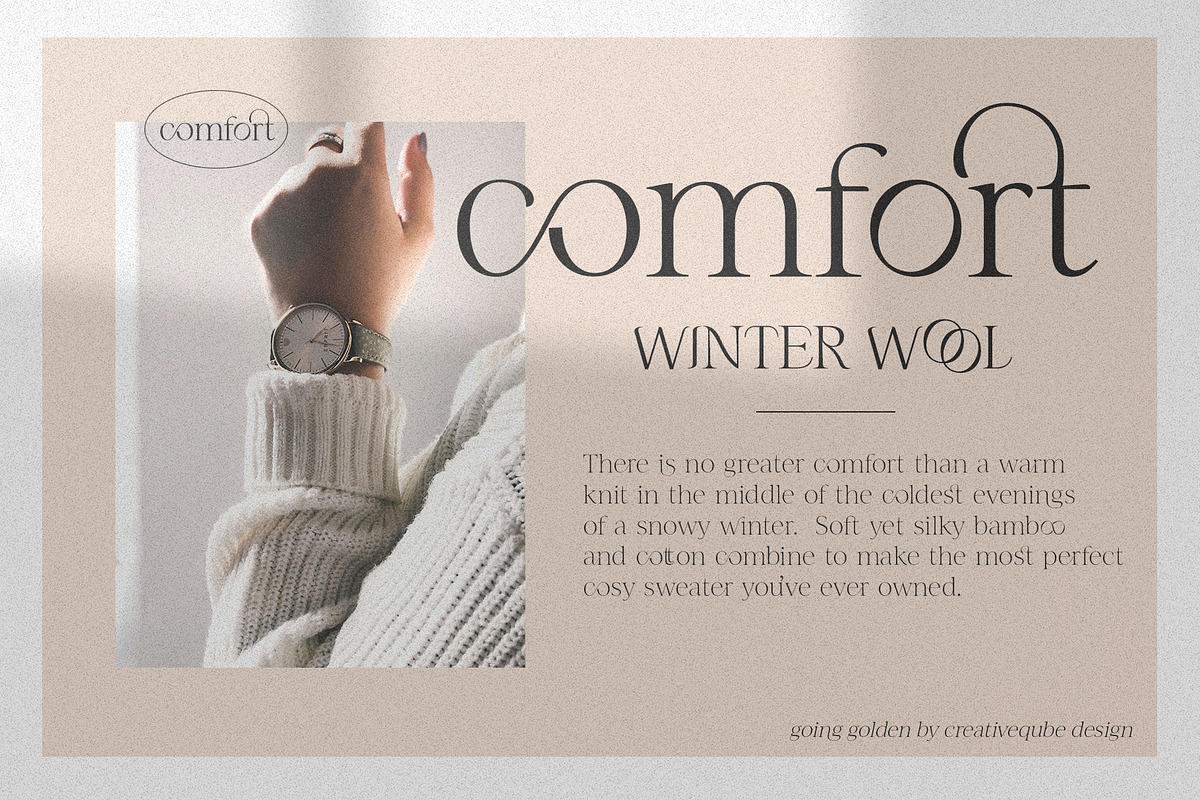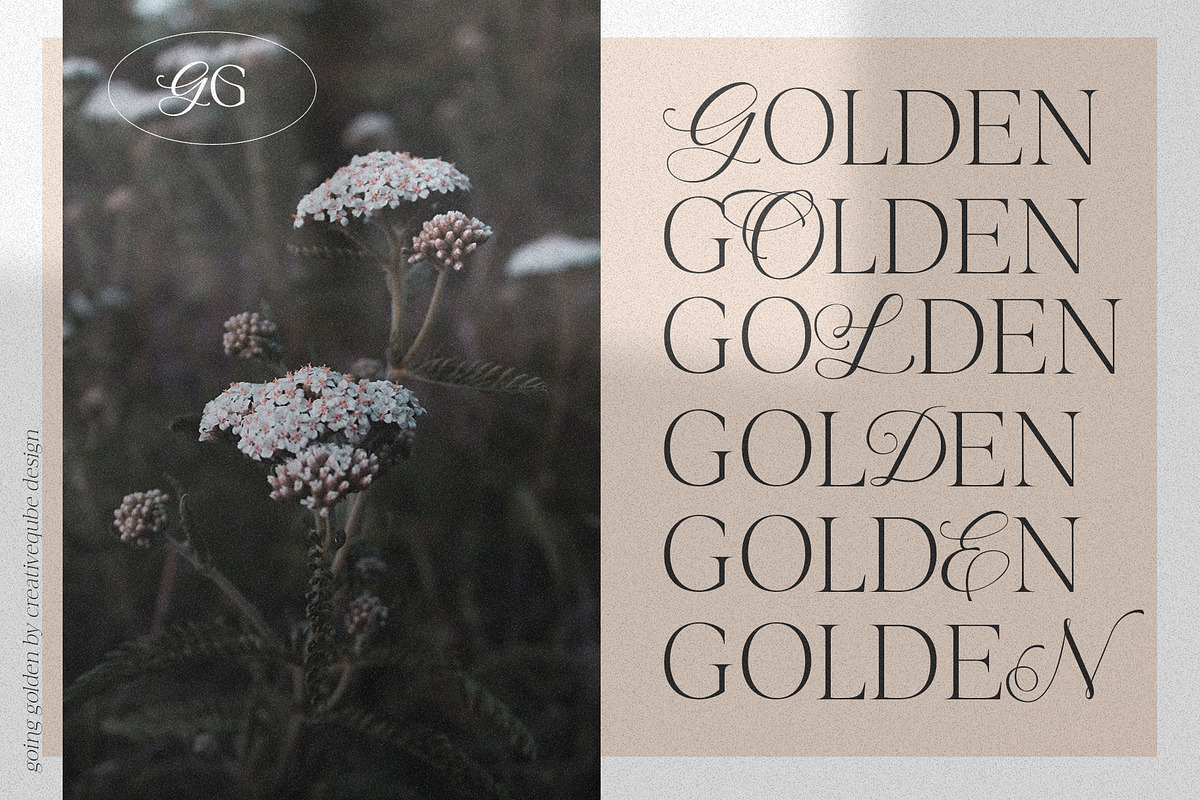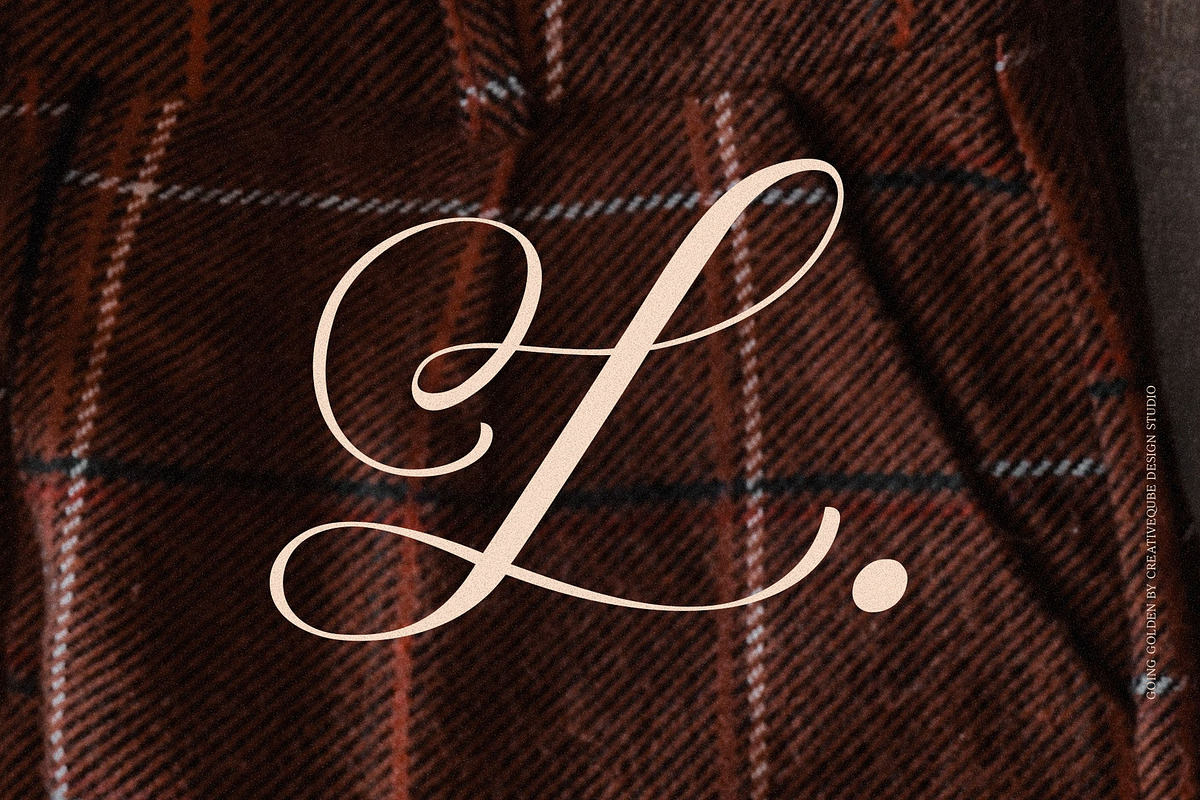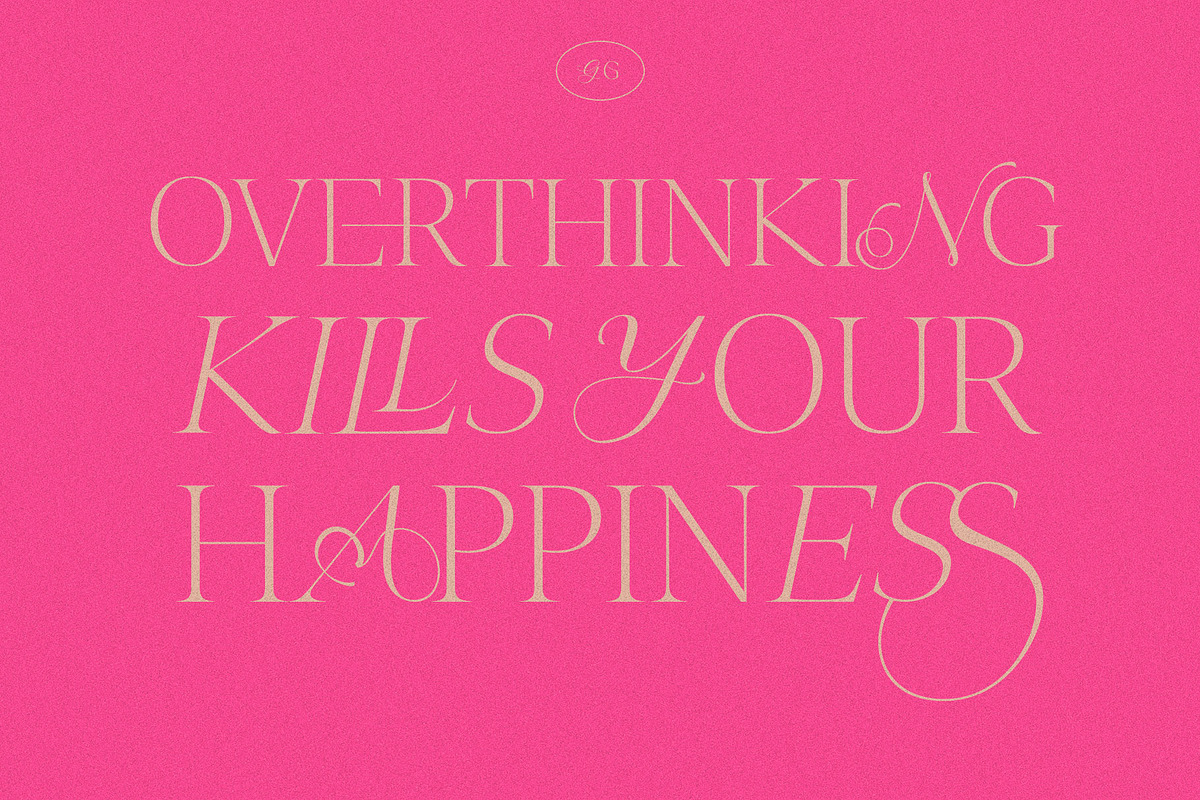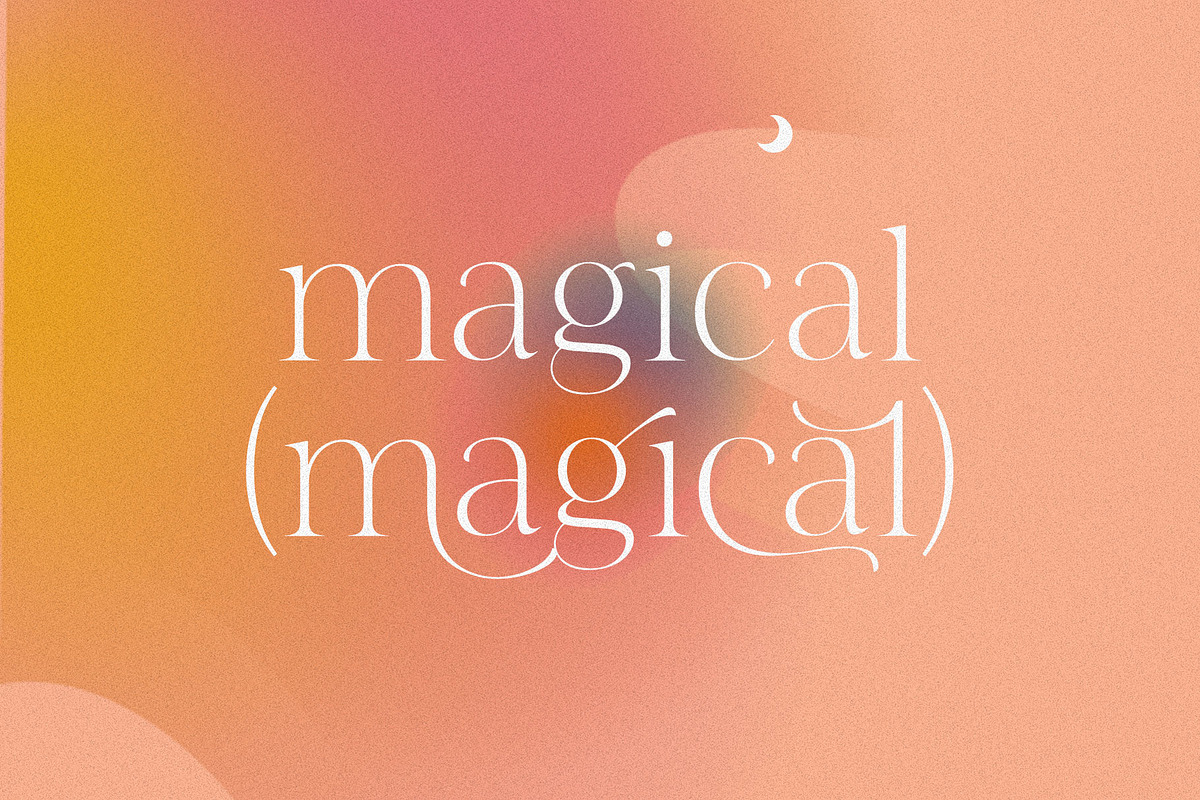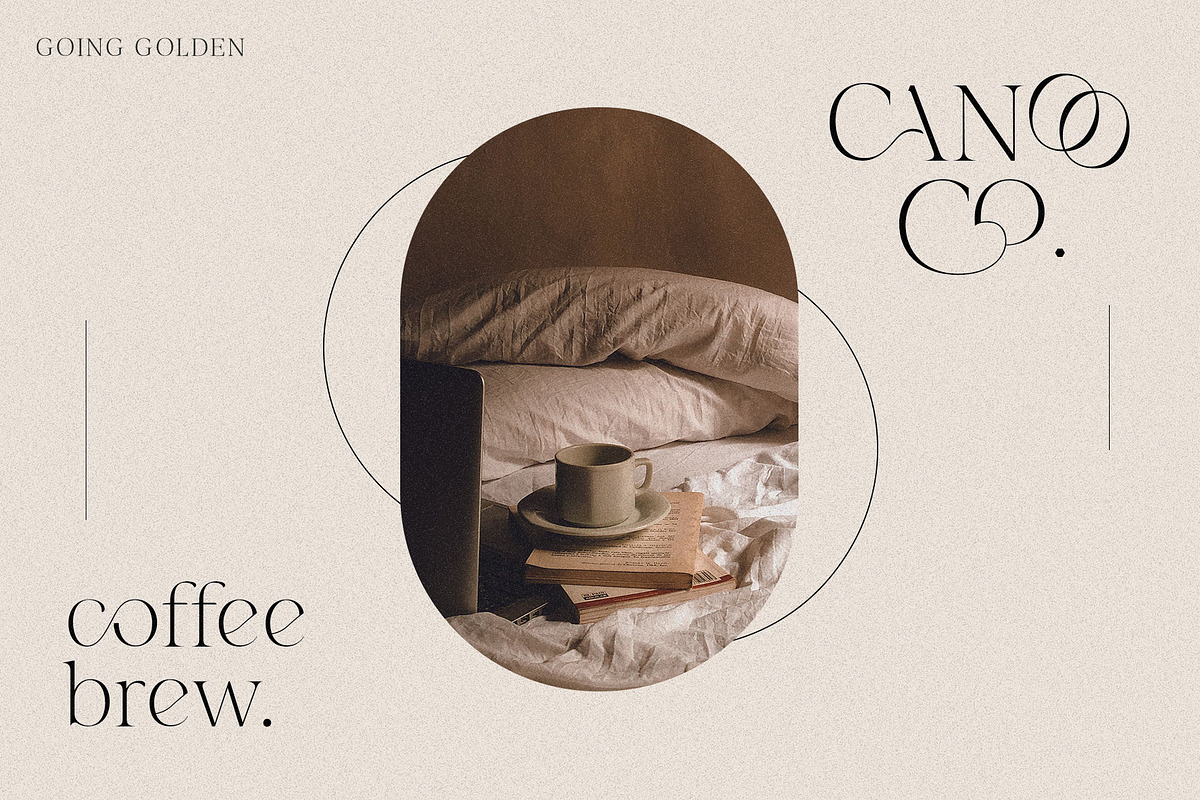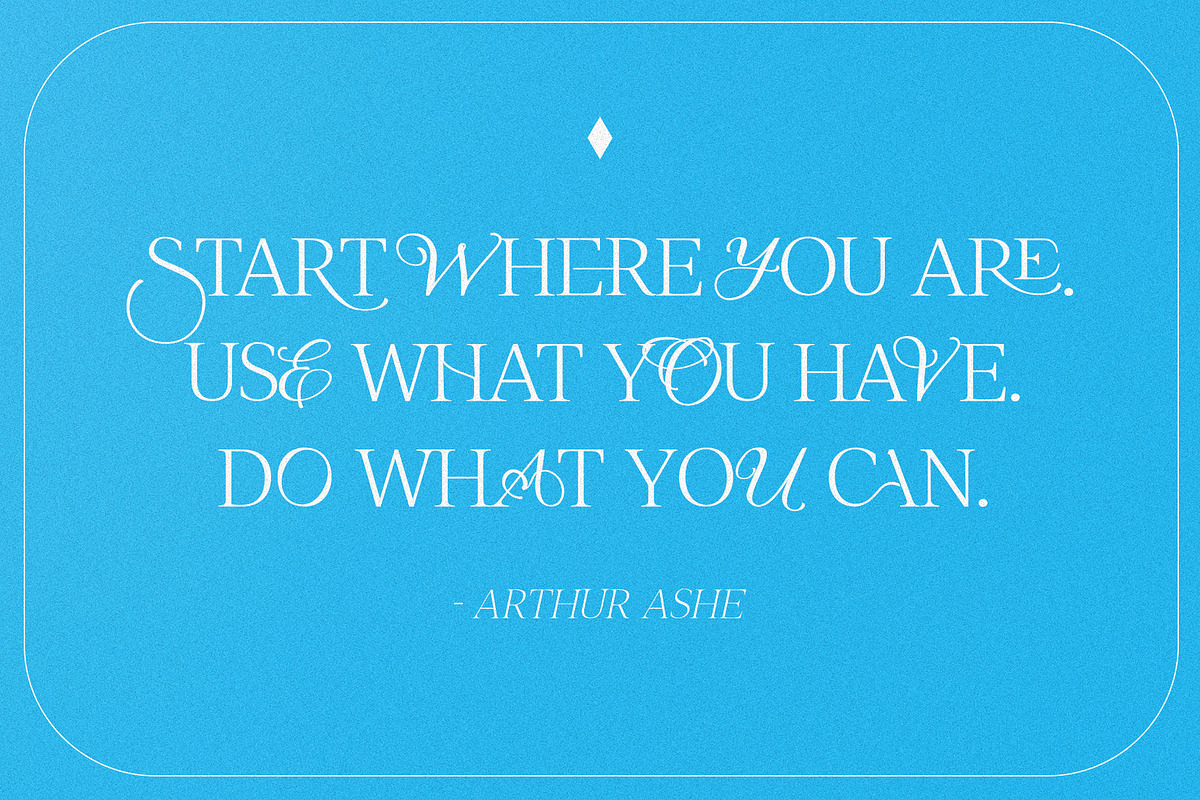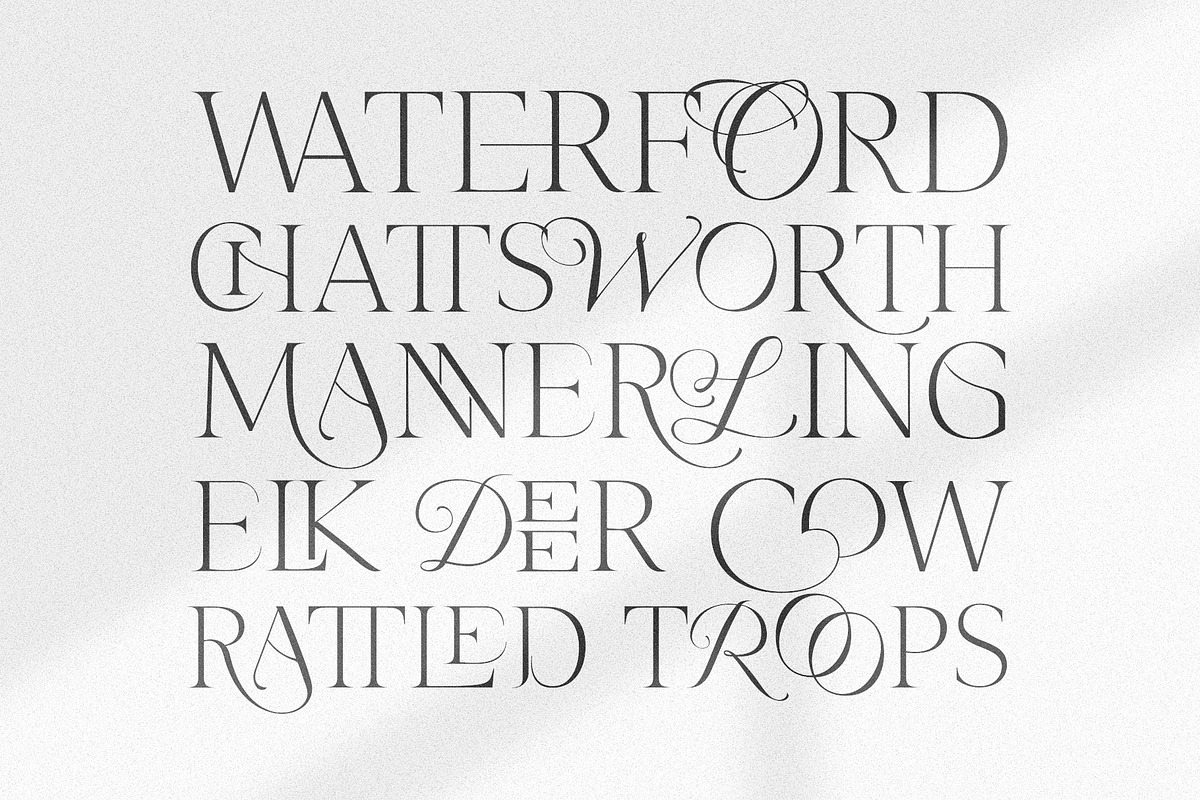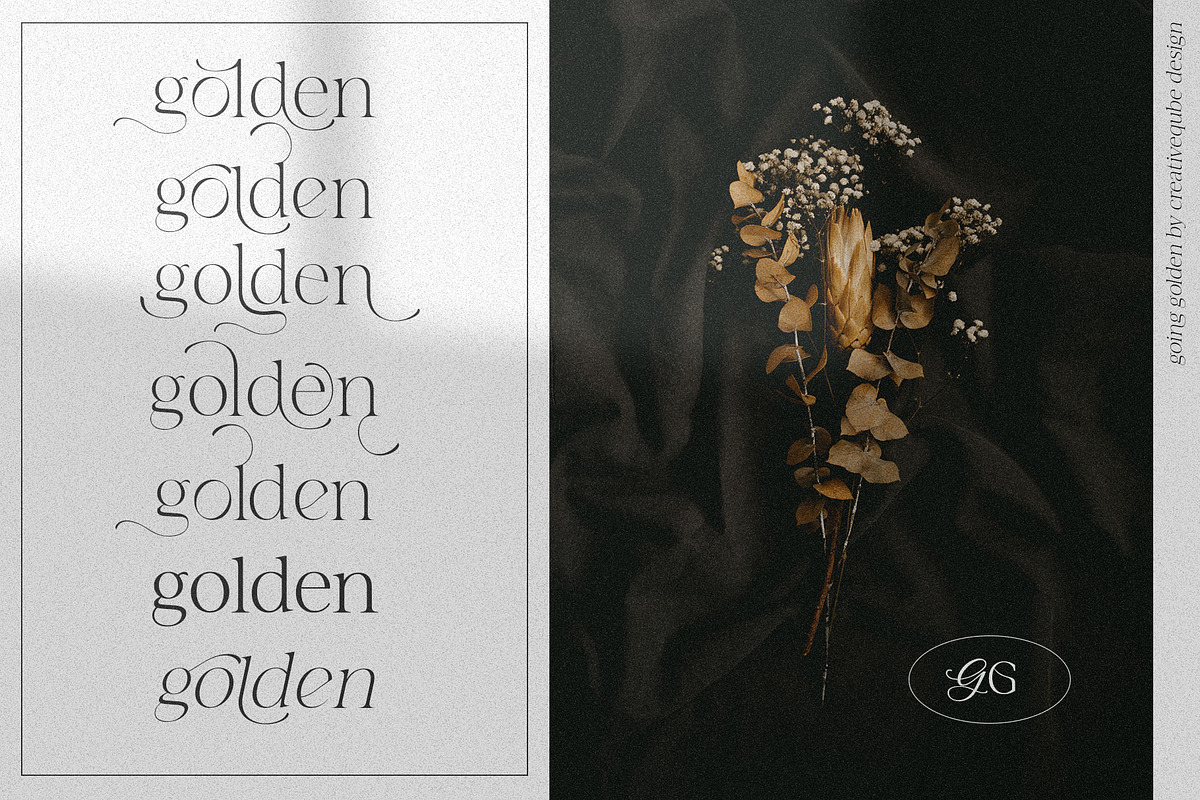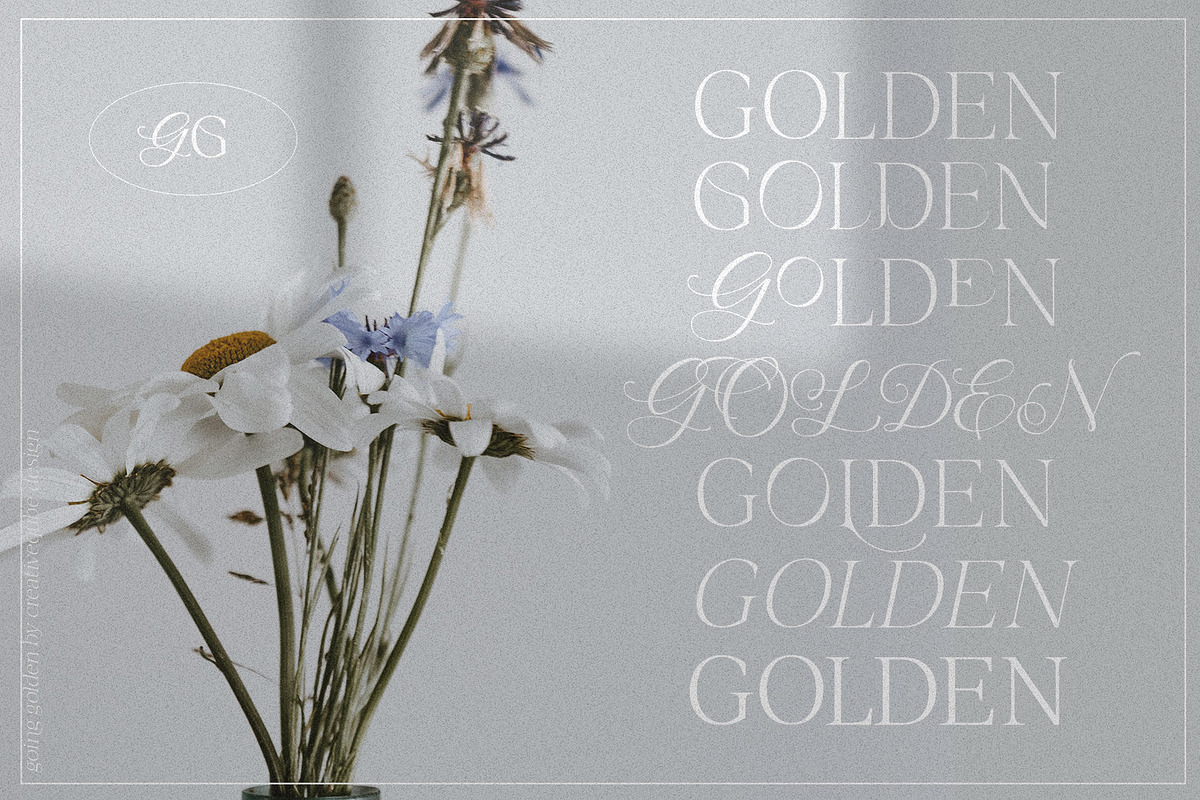
Going Golden Font Family
Going Golden is a modern experimental serif font that makes for stunning logos, quotes, wedding invites, blog posts, Instagram, and more! Included is 3 different variations including Regular, italics, & Bold.
I’ve included loads of unique ligatures, pairs and alternates, so the possibilities with this font are almost endless! Both upper and lowercase look amazing.
- Regular Serif
- Italics, Bold
- Numbers + Punctuation